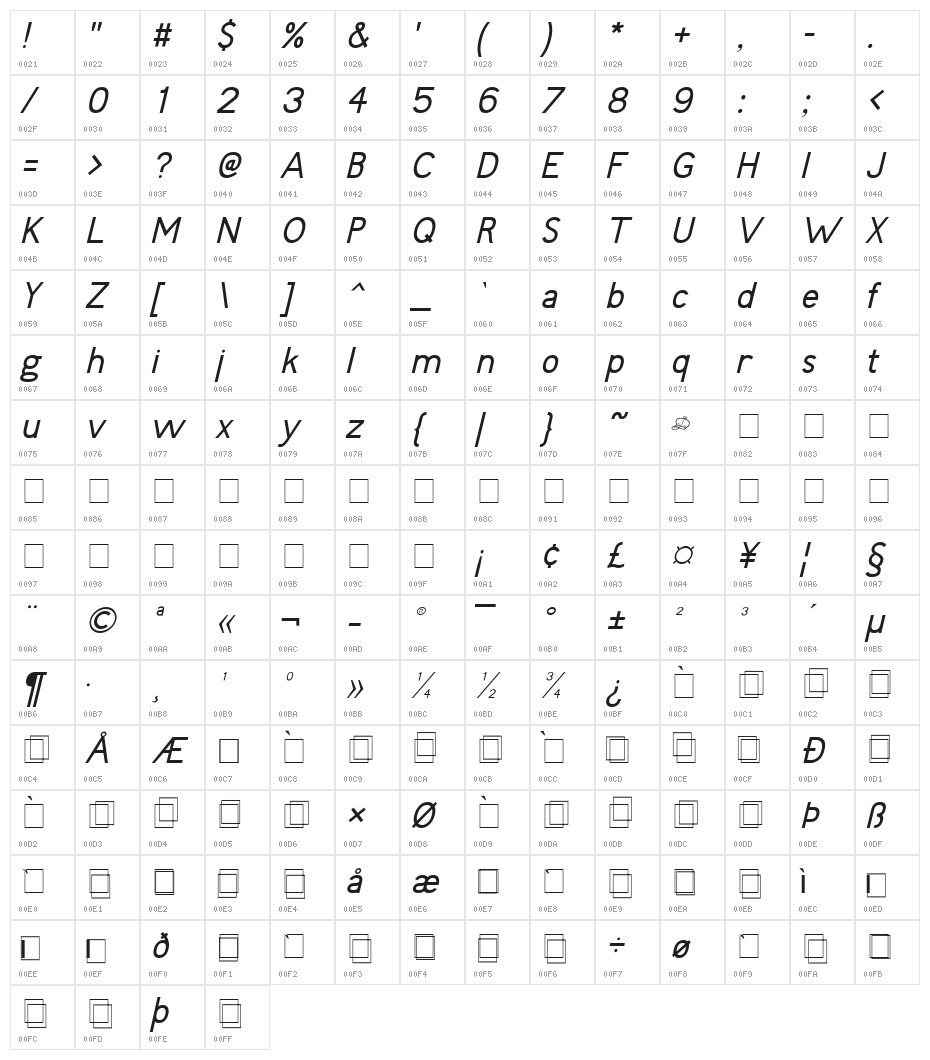
Fudd Italic Font
Fudd Italic Description
This font features a sleek and modern italic style, characterized by its clean lines and smooth curves. The letters are slightly slanted, giving a dynamic and forward-moving appearance. The uppercase and lowercase letters maintain a consistent style, with a moderate contrast in stroke thickness that adds to its readability. The numerals and special characters are designed to complement the alphabet, maintaining the same elegant and streamlined look. The overall design is versatile, making it suitable for a variety of applications.
| Proposed Projects | Ideal for branding, advertising, and editorial design projects where a modern and dynamic look is desired. |